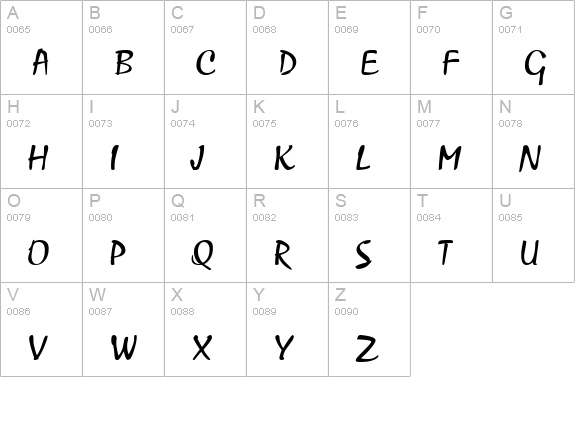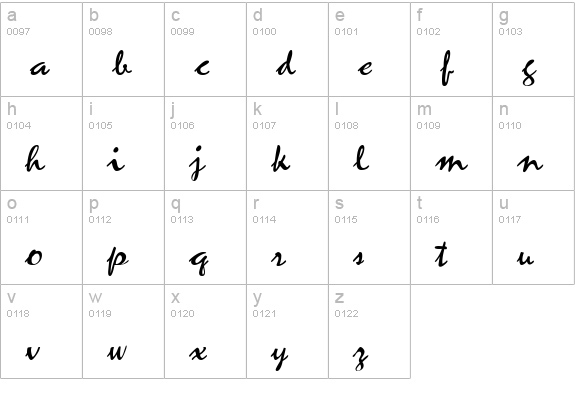
Minstrella Font Details
Minstrella font exudes elegance and sophistication with its delicate curves and graceful lines. This versatile typeface strikes the perfect balance between modernity and tradition, making it a timeless addition to any design project. Whether you're creating a wedding invitation, branding materials, or elegant packaging, Minstrella font is sure to add a touch of refinement. And the best part? Minstrella font is completely free to download at FontsMarket.com! This means you can elevate your creative projects without breaking the bank. Don't miss out on the opportunity to enhance your designs with the beauty and charm of Minstrella font. Download it today and let your creativity shine!